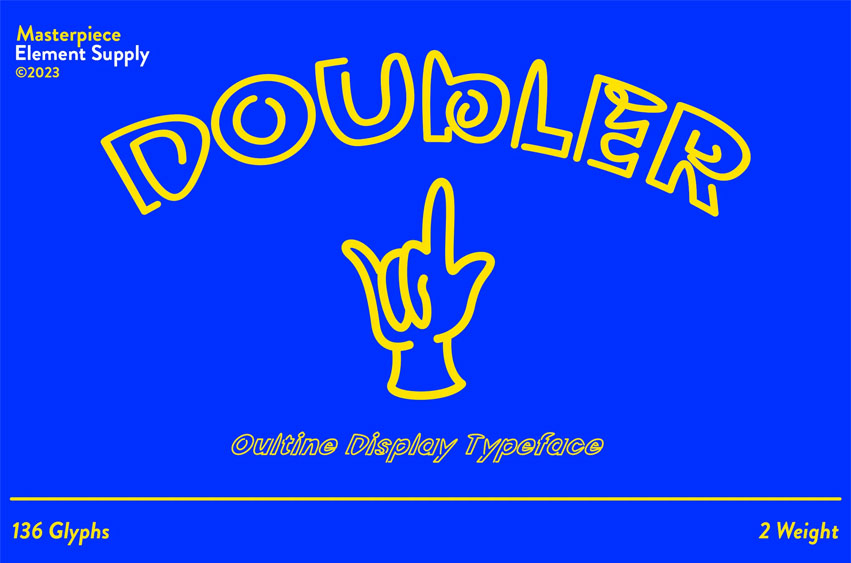
Doubler Font is a clean, feminine, and modern Decorative typeface.
Perfect for many different projects: quotes, blog header, poster, wedding, branding, logo, fashion, apparel, letter, invitation, stationery, etc.